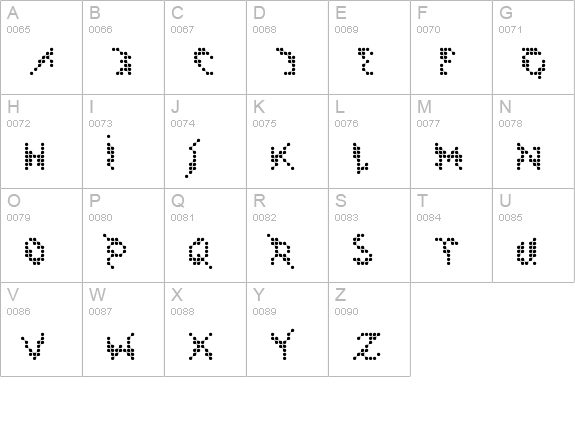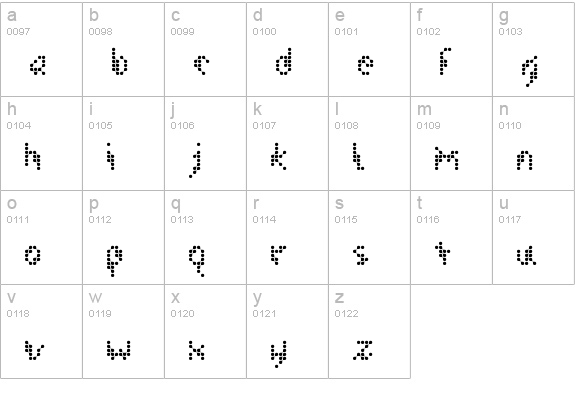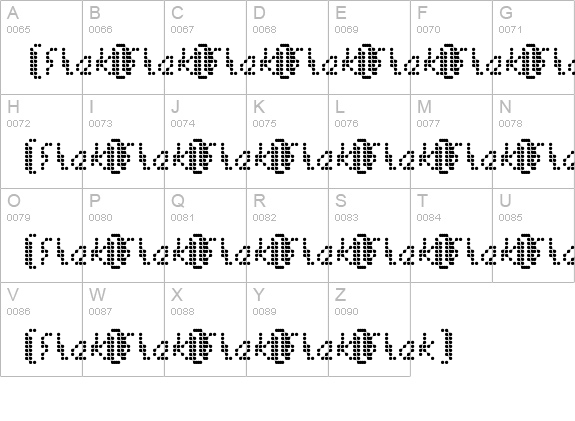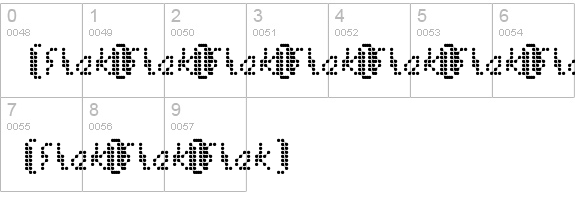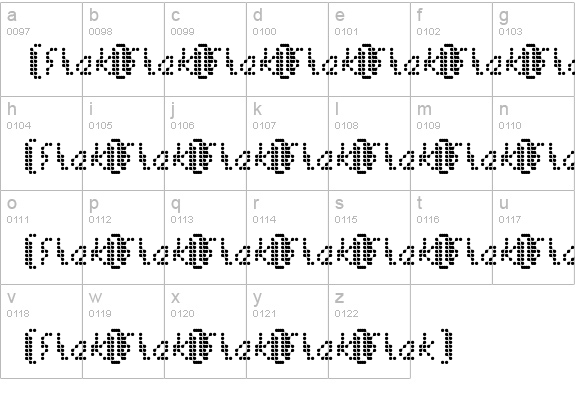
[.flak.] Font Details
Introducing [.flak.] font, a striking and dynamic typeface that exudes a sense of modernity and creativity. With its bold and edgy design, [.flak.] font is perfect for making a statement in your projects. Whether you're working on a poster, logo, or branding materials, this font will add a touch of sophistication and style. The best part? [.flak.] font is completely free to download at FontsMarket.com. This means you can access this versatile and eye-catching font without breaking the bank. Don't miss out on the opportunity to elevate your designs with the unique charm of the [.flak.] font. Download it today and let your creativity soar!